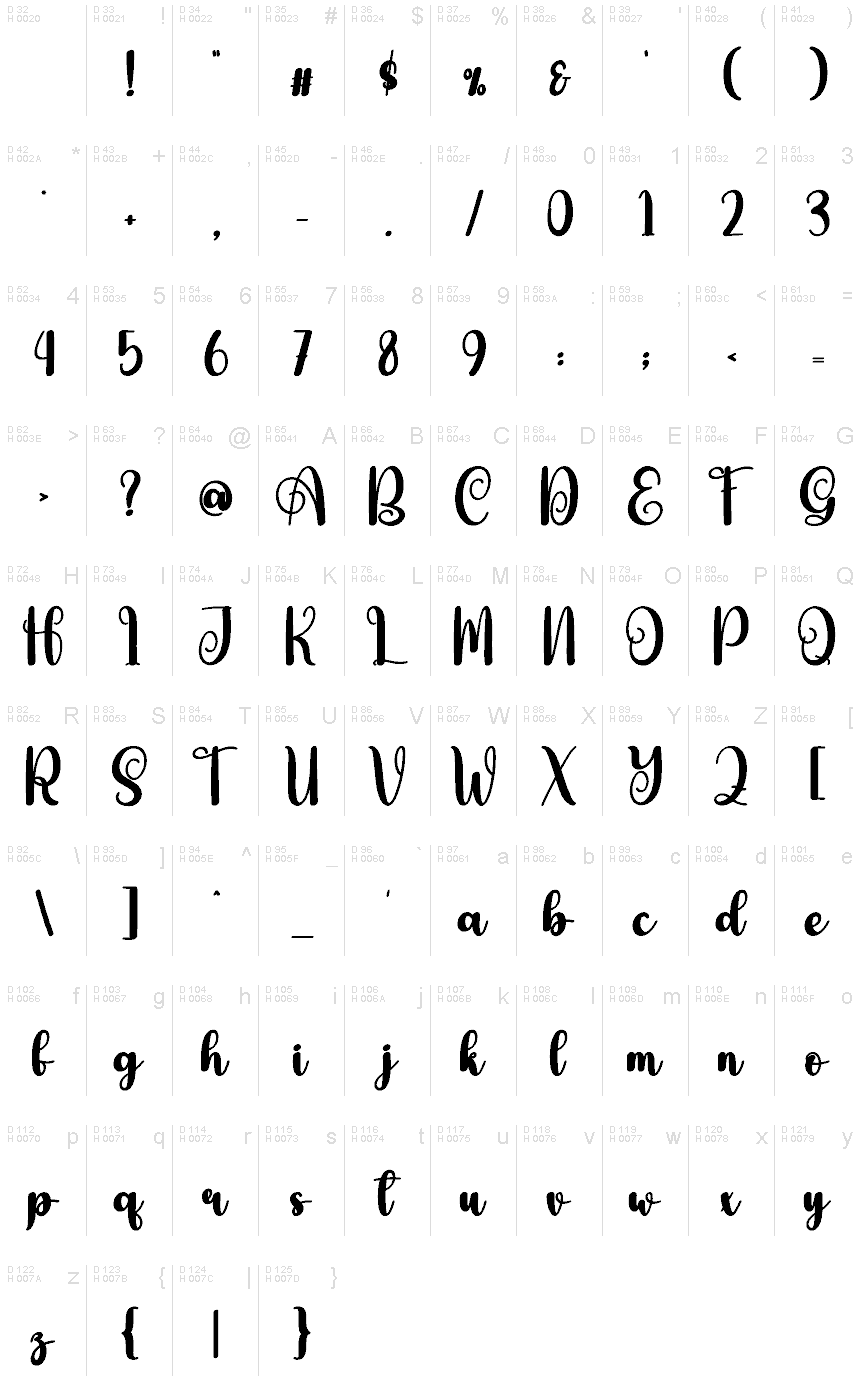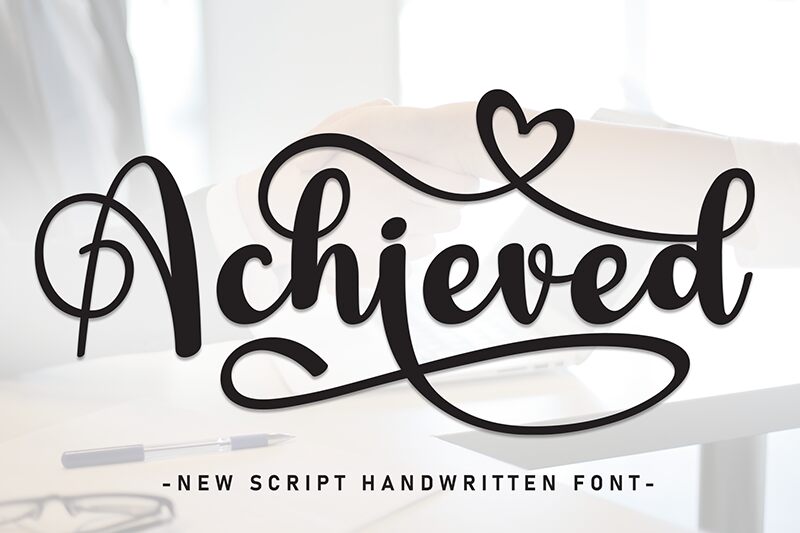
Achieved
Achieved font is a modern script style by Scratchones that captivates with its romantic, elegant, and expressive essence. This free calligraphy font stands out with its smooth flow and distinct curves, exuding an emotional appeal perfect for creating designs for special occasions.
Achieved is suitable for designing greeting cards, wedding invitation cards, RSVP cards, posters and flyers. It works great for individual gifts like T-shirts and mugs, patterns for jewelry or tattoo milestones. Also consider it in design scenarios related to hospitality businesses such as beauty lounges and health spas.